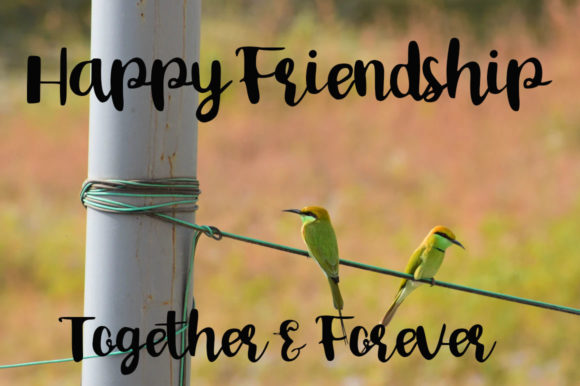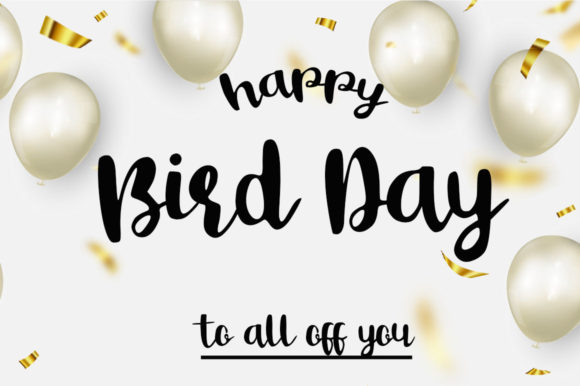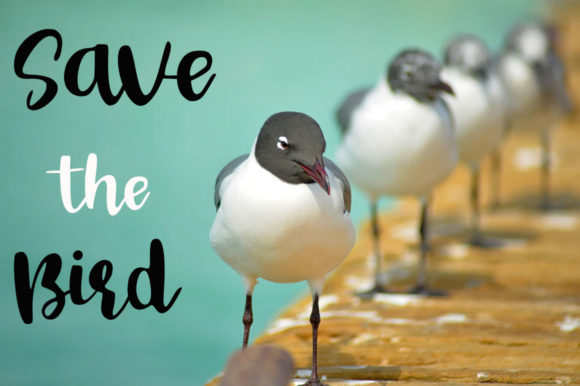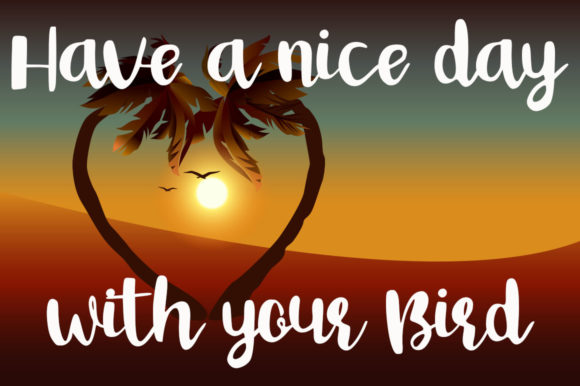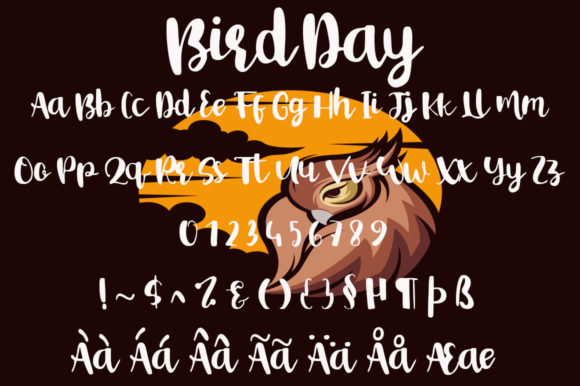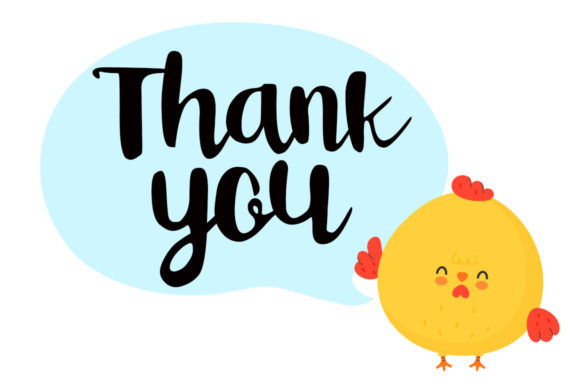
About Bird Day Font
Bird Day is a sweet, colorful and flowing handwritten font. Fall in love with its incredibly versatile style and use it to create gorgeous wedding invitations, beautiful stationary art, eye-catching social media posts, and much more!